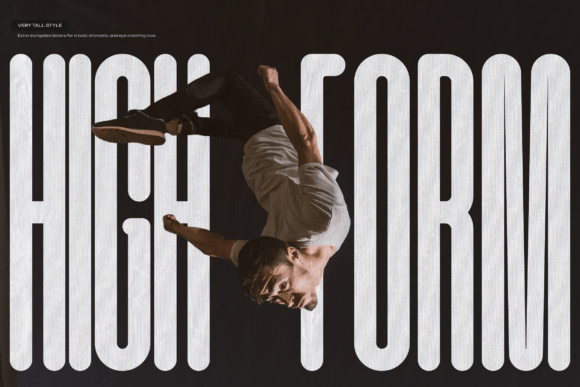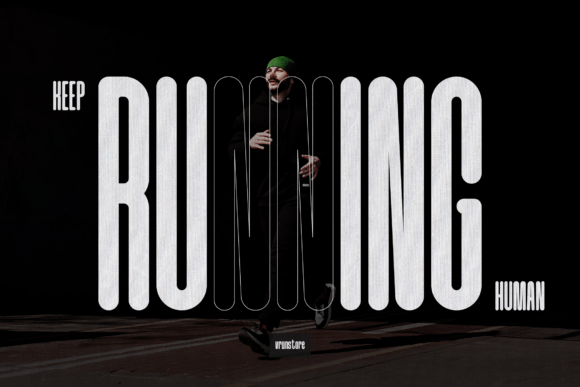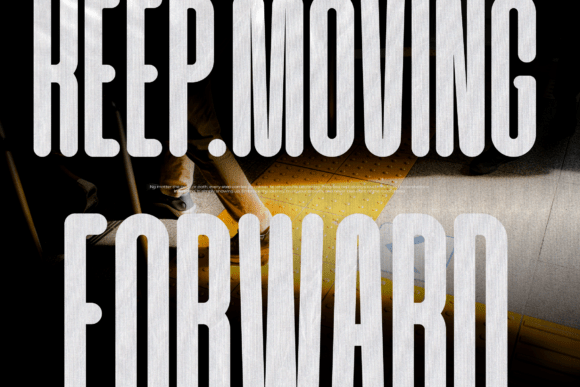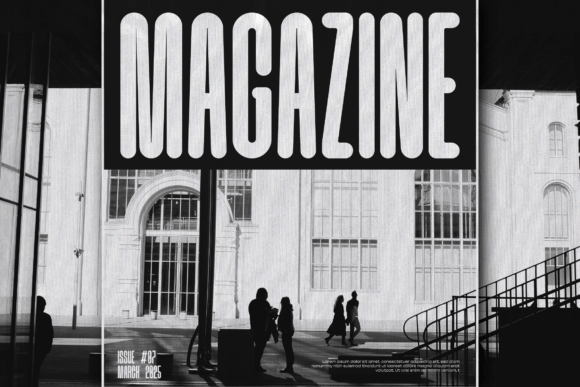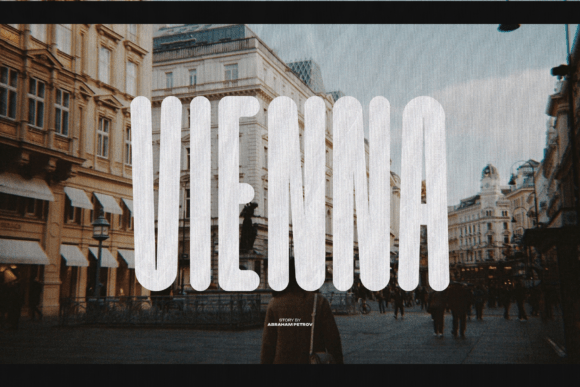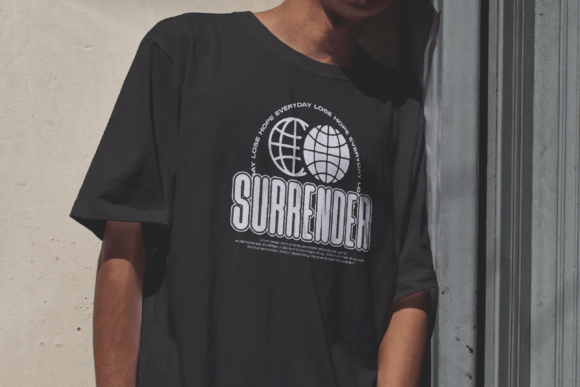
Introducing El Durado Font: The Perfect Condensed Sans Serif for Your Design Projects
Are you a designer or crafter looking for a versatile and stylish font to elevate your projects? Look no further than El Durado Font, a condensed sans serif font that is perfect for a wide range of applications. From logos and branding projects to homeware designs, product packaging, and more, El Durado Font is the ideal choice for adding a touch of sophistication and elegance to your work.
What is El Durado Font?
El Durado Font is a carefully crafted condensed sans serif font that is designed to make a statement. Its sleek and modern lines make it perfect for projects that require a clean and sophisticated look. The font is highly legible, even at small sizes, making it ideal for use in a variety of contexts, from body text to headings and titles.
What Projects is El Durado Font Suitable For?
El Durado Font is an incredibly versatile font that can be used in a wide range of projects, including:
- Logos and branding projects: Create a lasting impression with a custom logo or branding project that showcases your unique style and personality.
- Homeware designs: Add a touch of elegance to your homeware designs, from kitchen utensils to decorative items.
- Product packaging: Stand out on store shelves with eye-catching product packaging that features El Durado Font.
- Mugs and ceramics: Create personalized mugs, plates, and other ceramics with a special message or design.
- Quotes and posters: Make a statement with bold and stylish quotes and posters that feature El Durado Font.
- Shopping bags: Elevate your brand with custom shopping bags that feature a professional and stylish design.
- T-shirts and apparel: Create unique and stylish t-shirts, hoodies, and other apparel with El Durado Font.
- Book covers and publishing: Add a touch of sophistication to your book covers, journals, and other publishing projects.
- Name cards and invitation cards: Create elegant and professional name cards and invitation cards for special events.
- Greeting cards and labels: Add a personal touch to your greeting cards, labels, and other stationery projects.
- Photography and watermark: Use El Durado Font to add a professional touch to your photography and watermark.
- Special events: Create custom designs for special events, such as weddings, birthdays, and anniversaries.
Why Choose El Durado Font?
So why choose El Durado Font for your design projects? Here are just a few reasons:
- Unique and stylish design: El Durado Font features a unique and stylish design that is sure to make your projects stand out.
- Highly legible: The font is highly legible, even at small sizes, making it perfect for use in a variety of contexts.
- Versatile: El Durado Font can be used in a wide range of projects, from logos and branding to homeware designs and product packaging.
Here are a few tips and tricks for getting the most out of El Durado Font:
- Experiment with different sizes and colors: El Durado Font looks great in a variety of sizes and colors, so don’t be afraid to experiment and find the perfect combination for your project.
- Pair with other fonts: El Durado Font pairs well with other fonts, so try combining it with a serif font for a stylish and sophisticated look.
- Use for headings and titles: El Durado Font is perfect for use in headings and titles, where its clean and modern lines can really make an impact.
In conclusion, El Durado Font is a versatile and stylish condensed sans serif font that is perfect for a wide range of design projects. Its unique and stylish design, high legibility, and ease of use make it an ideal choice for designers and crafters looking to elevate their work. So why not give El Durado Font a try today and see the difference it can make in your designs?